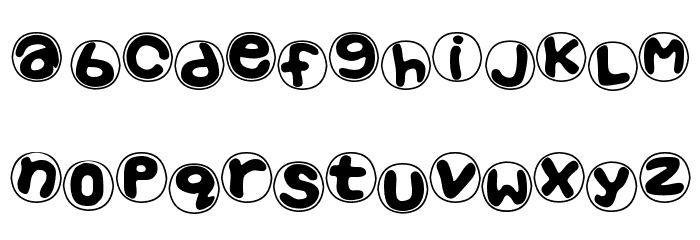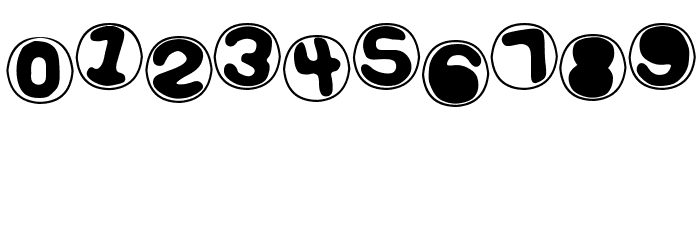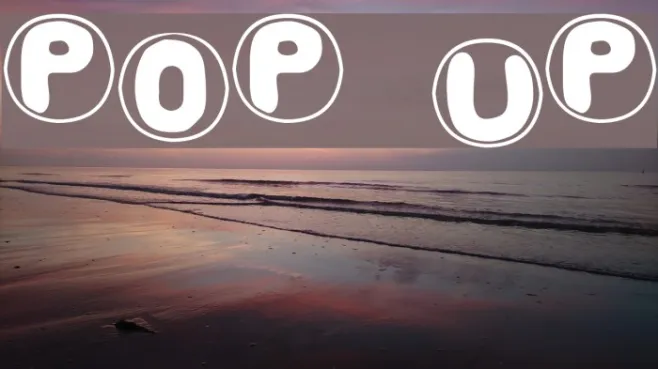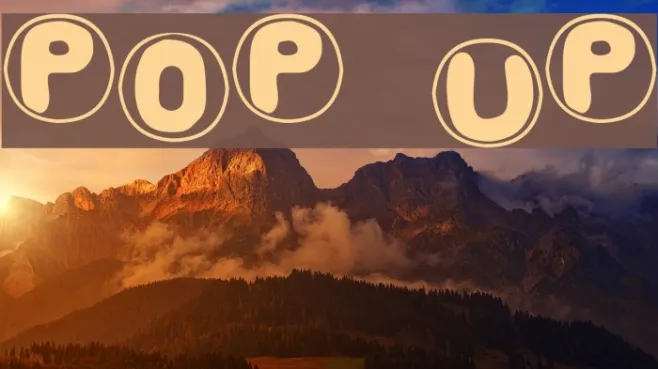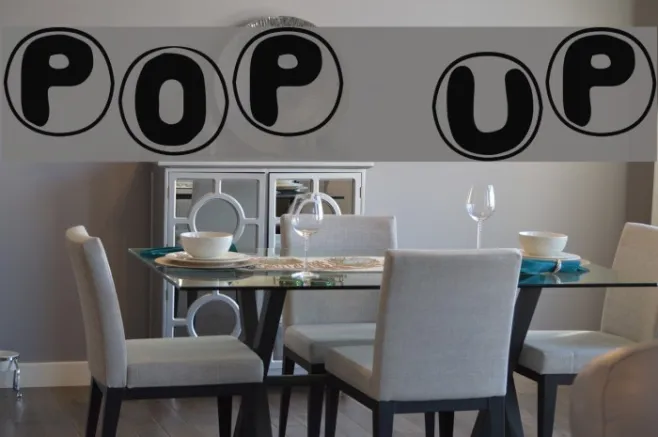
Pop Up Font
This playful and bold font features characters encased in circular shapes, creating a unique and eye-catching appearance. The letters and numbers are designed with a thick, bubbly style that gives a sense of fun and whimsy. Each character is centered within its circle, providing a consistent and uniform look across the entire set. The font's high contrast between the thick strokes and the negative space within the circles enhances its readability while maintaining a decorative flair. This font is ideal for projects that require a lively and engaging visual element, such as children's books, party invitations, or playful branding materials.
A playful, bold font with characters encased in circles, perfect for fun and engaging designs.
- Proposed Projects: Children's books, party invitations, playful branding, posters, and creative packaging.
- Overall Style: Playful, Fun, Whimsical